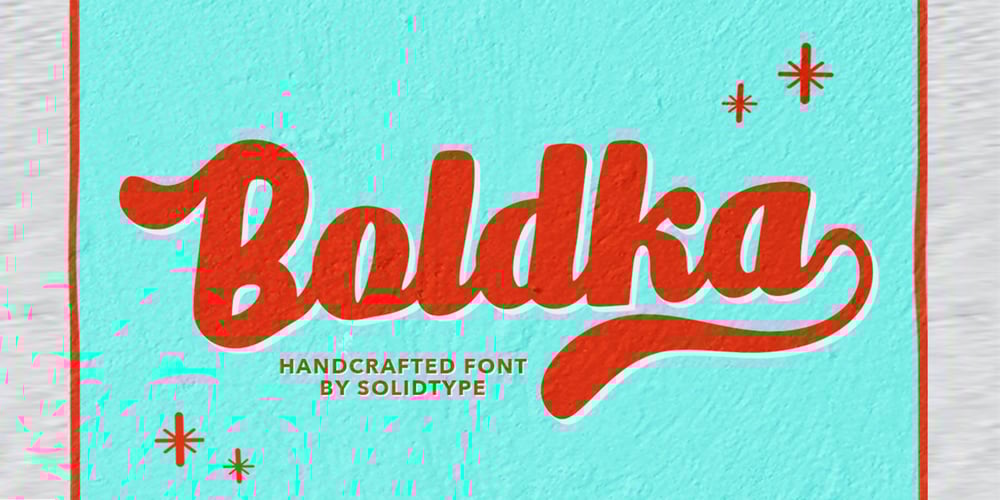
Boldka Script
Boldka Script font
Boldka Script Font Family was designed by Riski Firmana and published by Solidtype. Boldka Script contains 1 styles and family package options. Boldka Script is a bold connected script. fresh, casual and fun. Great font for creating headlines, logos & posters and more. Features Open type feature, including stylistic alternates, ligatures and International support for most Western Languages is included.